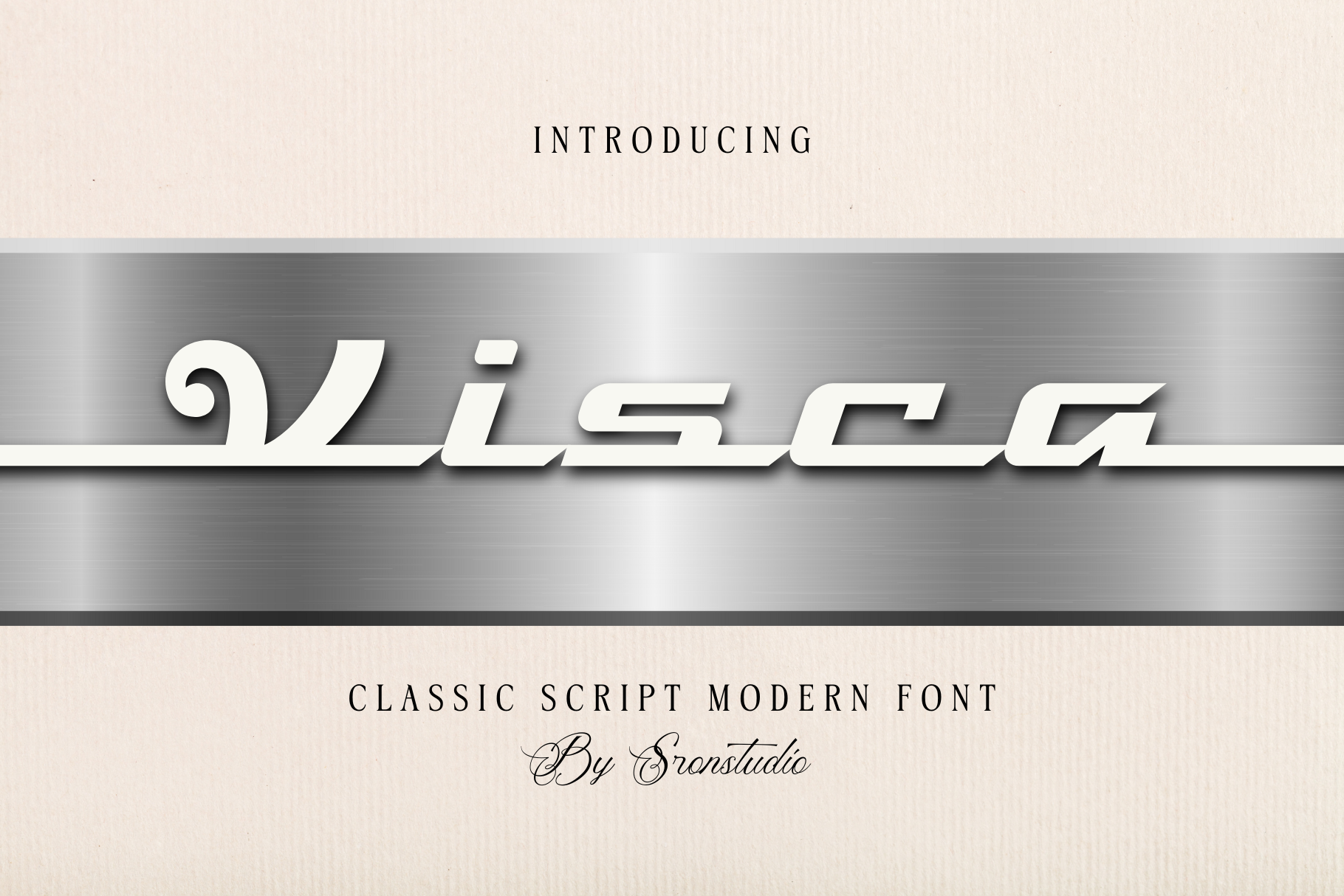
Visca - Vintage Script Font
Visca is a vintage script font that exudes elegance and timeless charm. Designed with smooth curves and beautifully crafted alternate letters, this font brings a classic yet stylish touch to your designs. Perfect for branding, packaging, logos, posters, and retro-inspired projects, Visca offers versatility with its unique swashes and alternates, allowing you to create stunning typography with ease.
- Alternate letters & swashes
- Uppercase & lowercase characters
- Numerals & punctuation